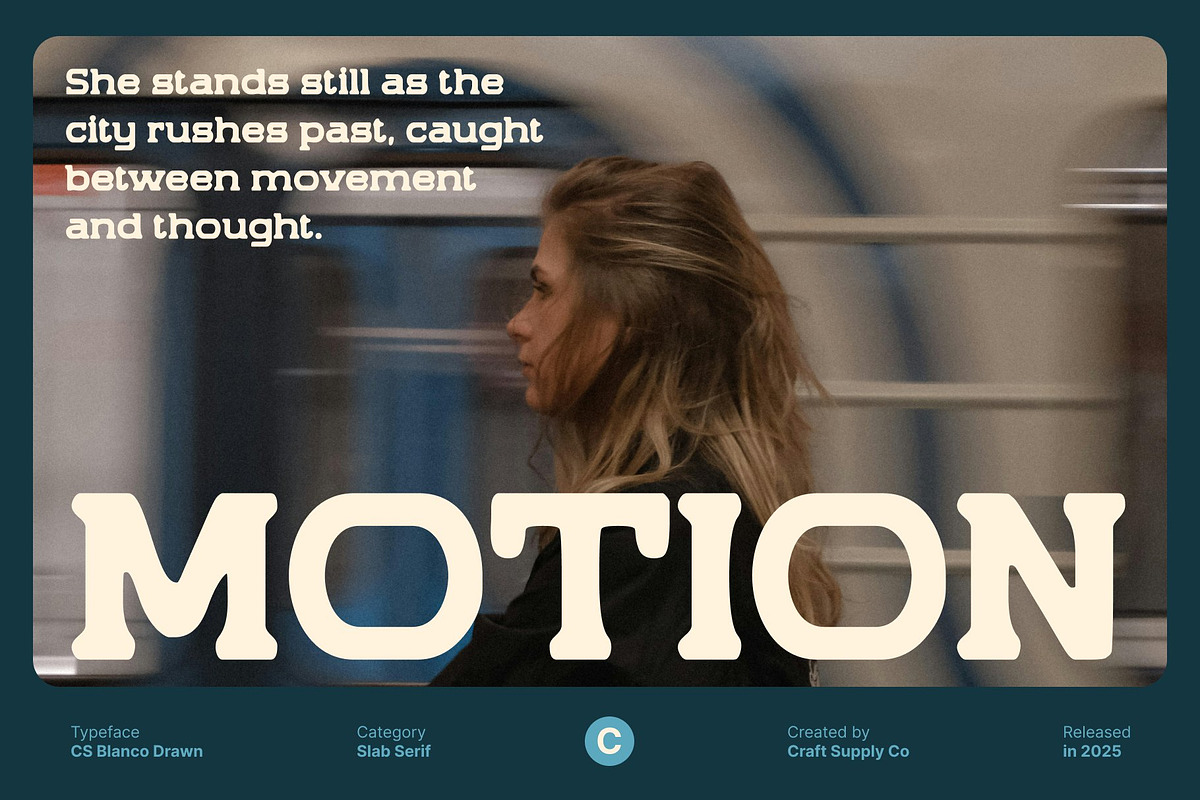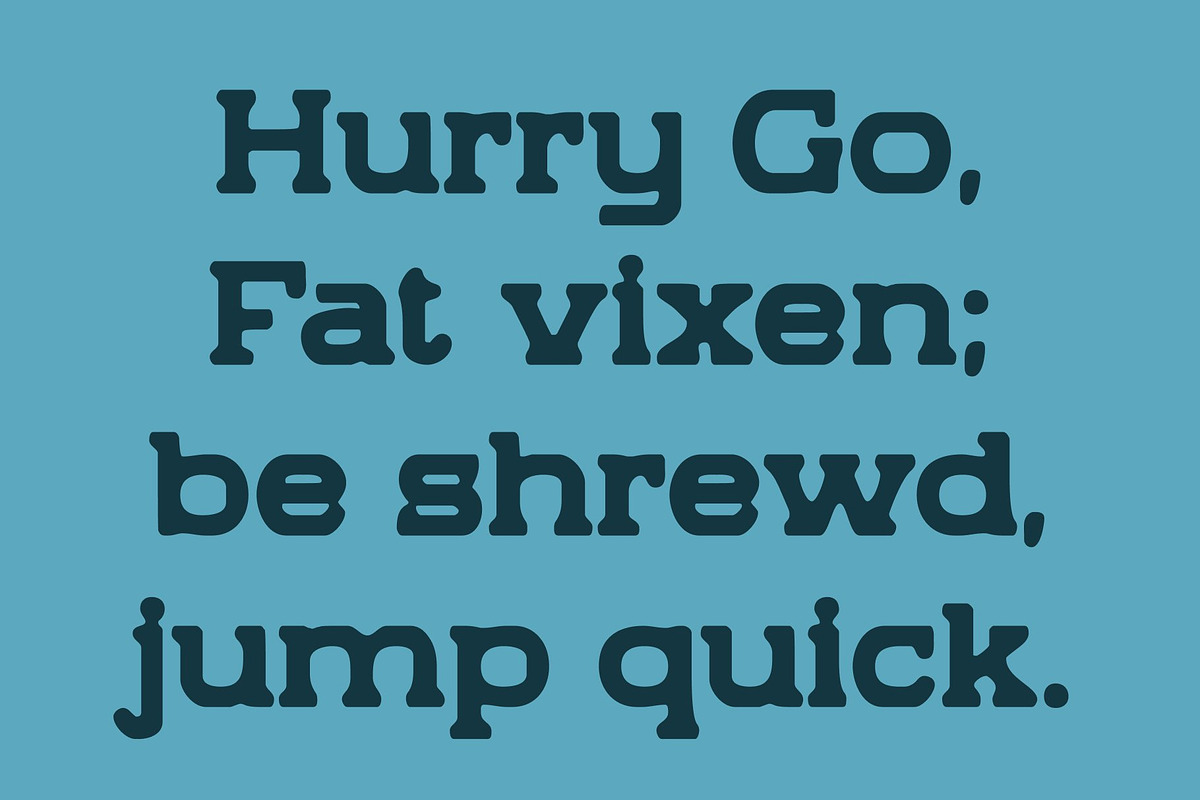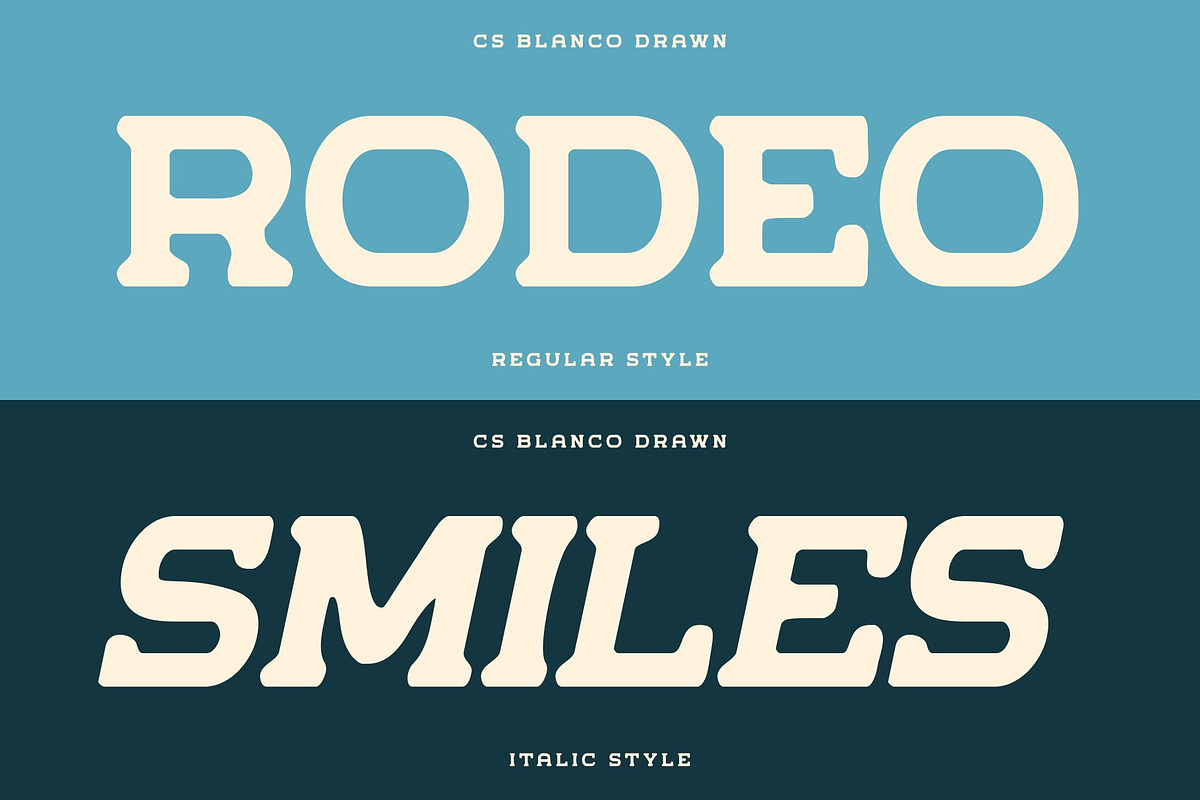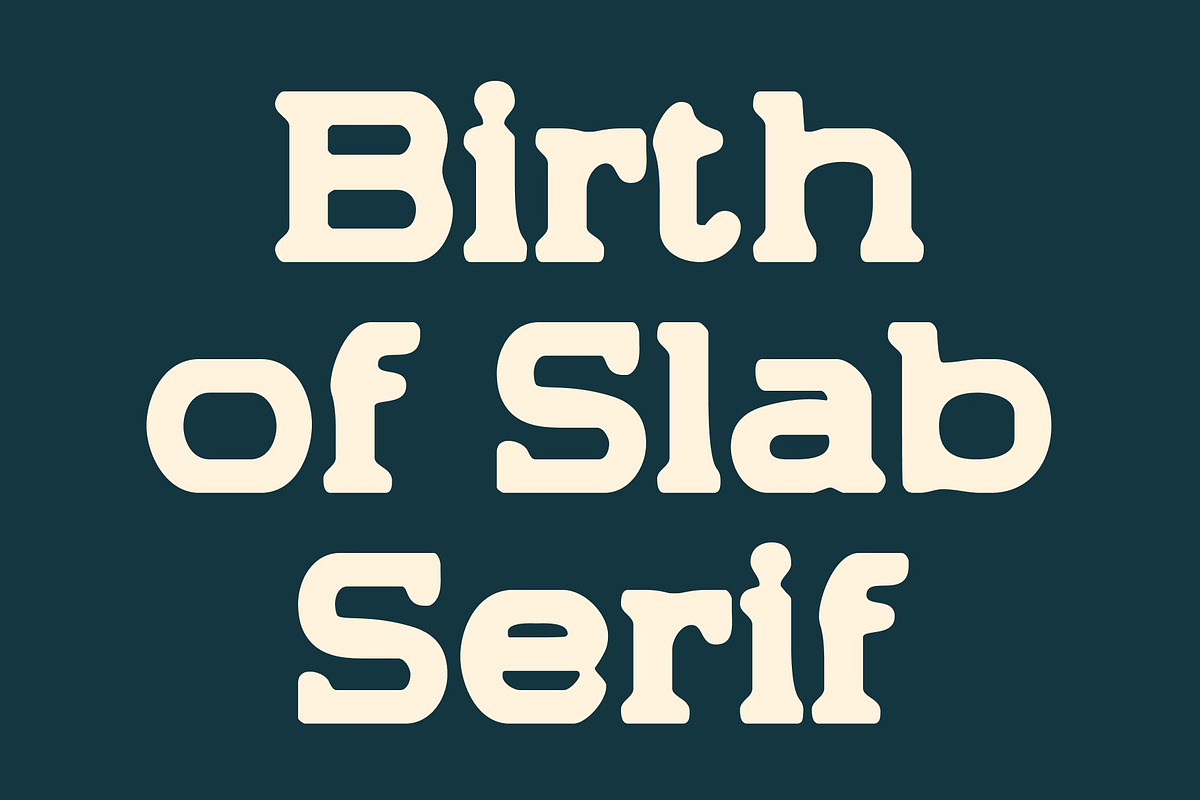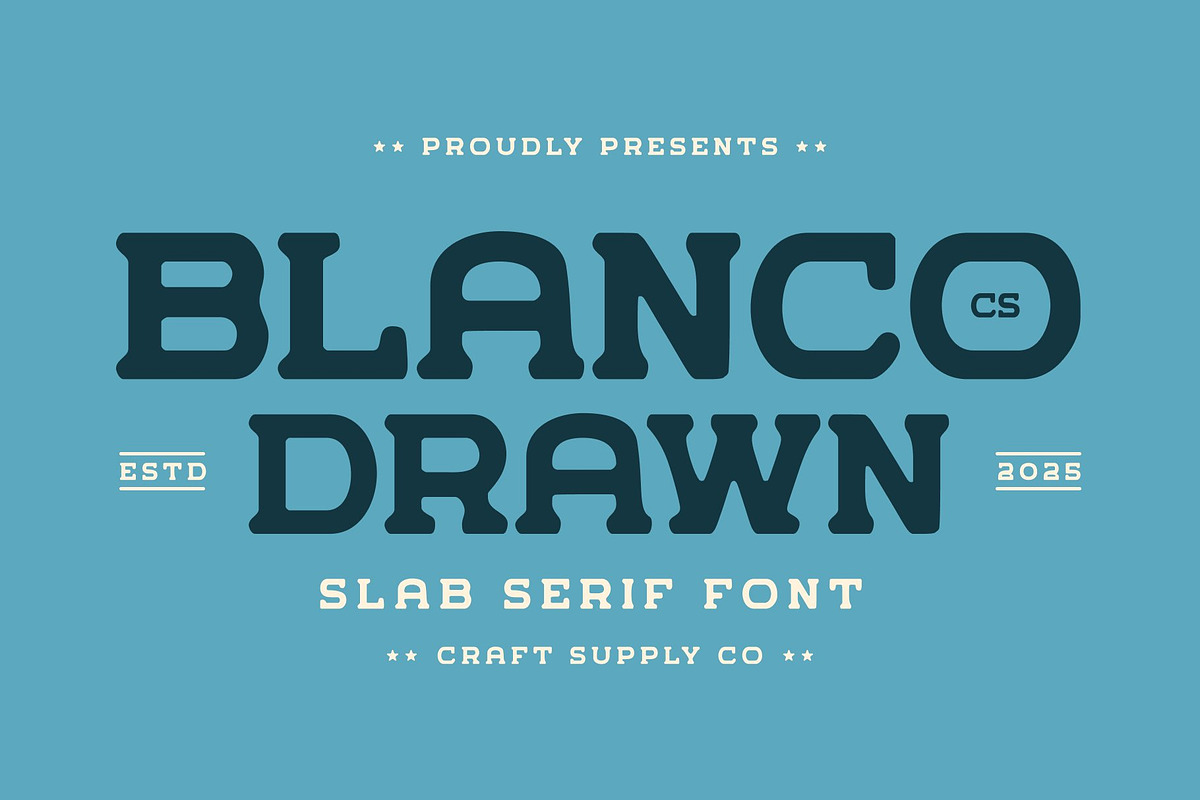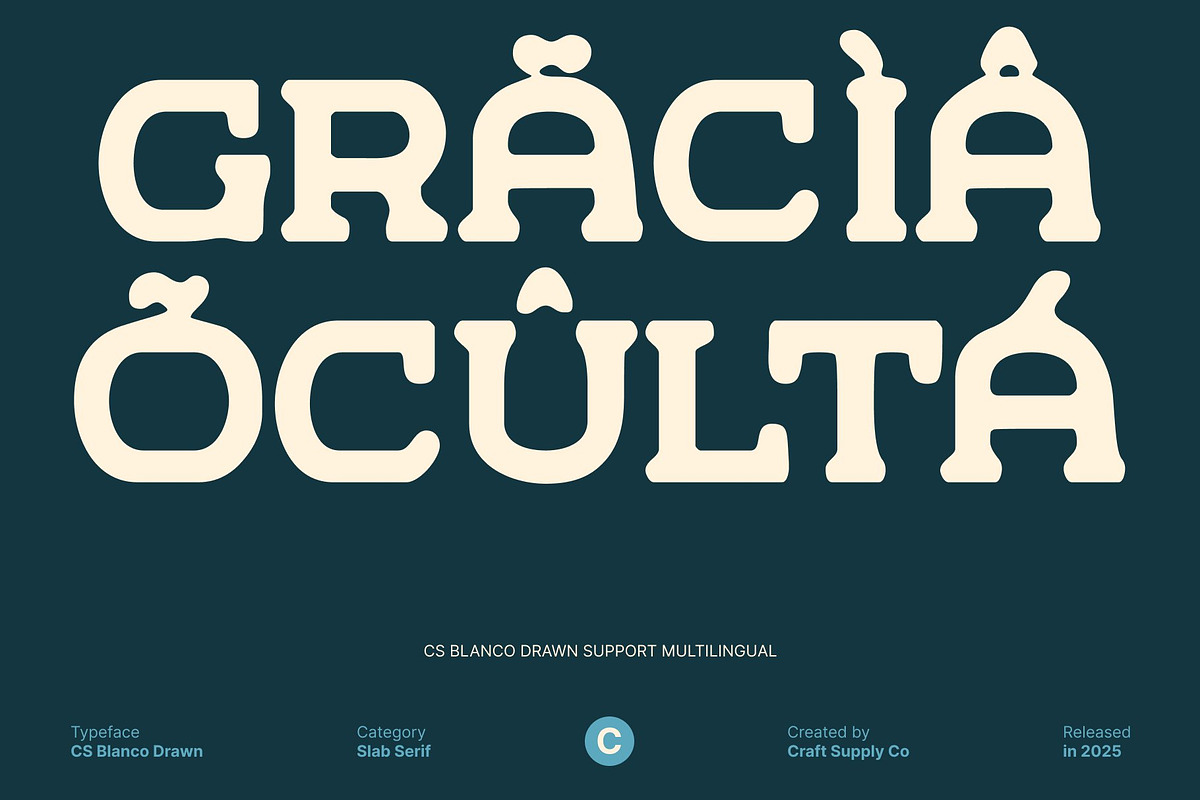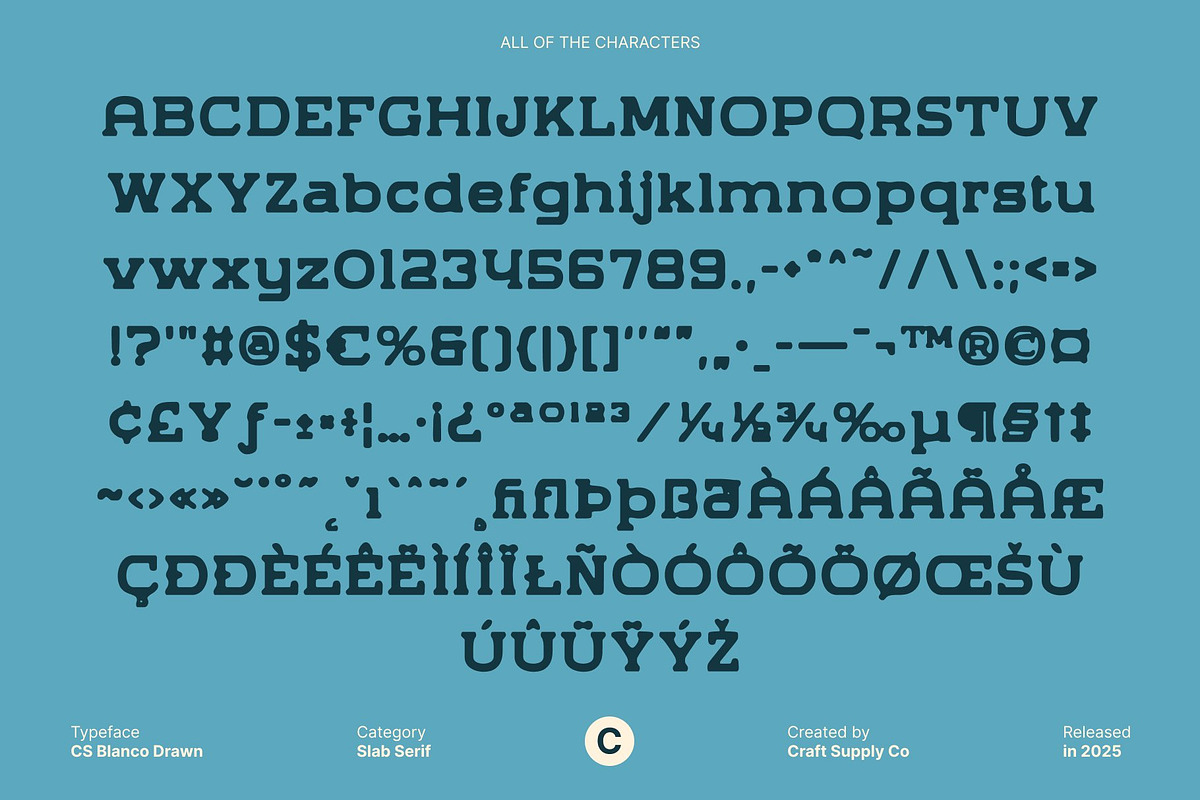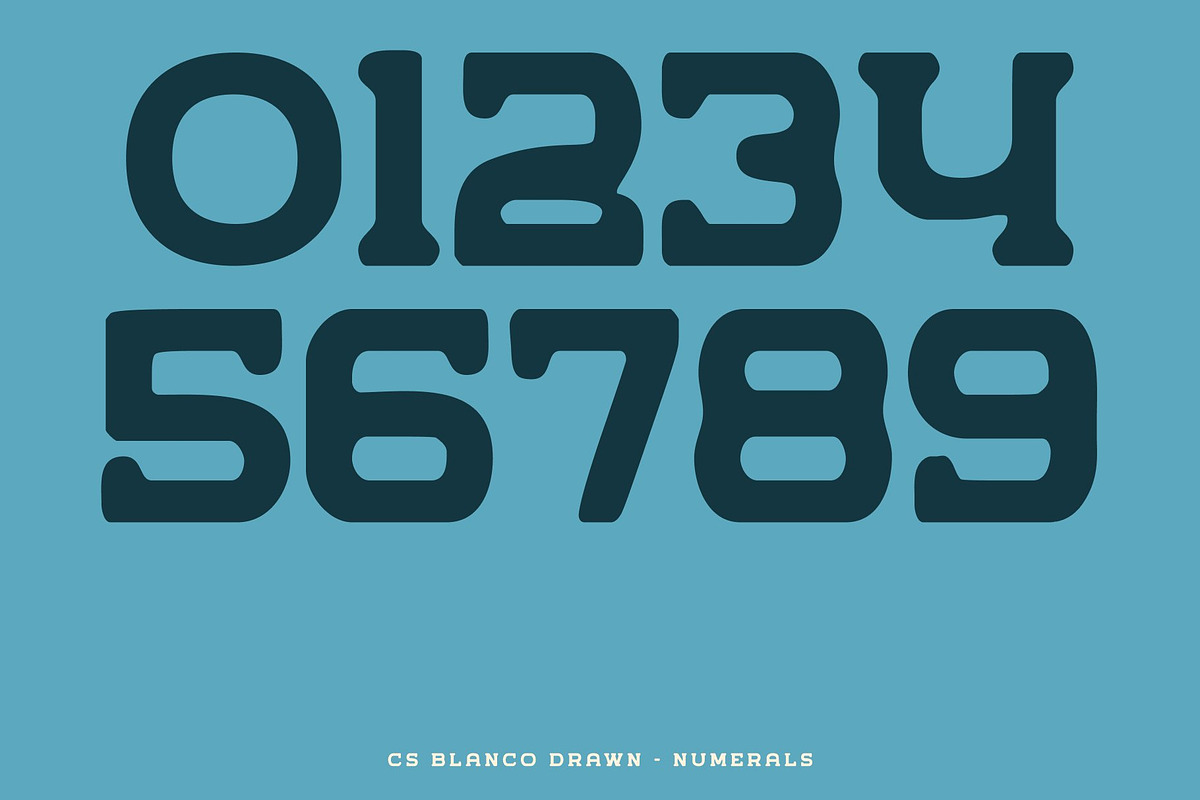
CS Blanco Drawn
CS Blanco Drawn – Expanded Slab Serif with Strong, Assertive Presence
Expanded Slab Serif Forms for a Commanding Look This is an expanded slab serif font designed to project boldness and authority. Its wide proportions and strong, sturdy serifs create a commanding presence, while the subtle hand-drawn texture adds personality and uniqueness to each character. This gives the font a handcrafted feel without losing its modern, professional edge.
Outstanding Readability for Large-Scale and Long-Distance Viewing Designed with clarity in mind, the drawn effect does not compromise readability. Each letter maintains balanced widths and solid structure, making it perfect for headlines, posters, billboards, and signage. The textured strokes add visual interest while keeping the text legible even at a distance.
Modern, Sturdy, and Ideal for Impactful Branding With its geometric foundation and hand-drawn nuances, this font communicates reliability, strength, and style. Its unique character shapes make it perfect for logos, product packaging, event identities, and promotional designs that need a contemporary yet approachable aesthetic.
Perfect for Sports Designs and Energetic Visuals The font’s bold, athletic posture and subtle drawn irregularities give it energy and movement. Ideal for sports branding, team graphics, and event visuals, it adds intensity, personality, and a sense of dynamic excitement to every design.
- CS Blanco Drawn Regular
- CS Blanco Drawn Italic